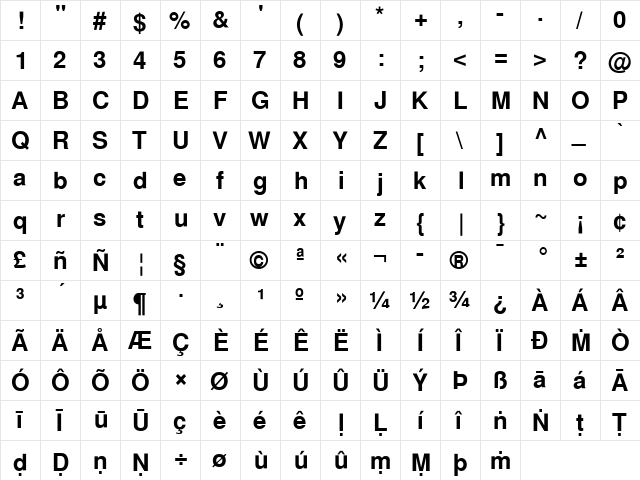
Pali Helvetica Regular
Design Context for Pali Helvetica Typeface
Pali Helvetica takes a measured approach to typography — its balanced proportions and neutral character make it a reliable workhorse for both digital and print work.